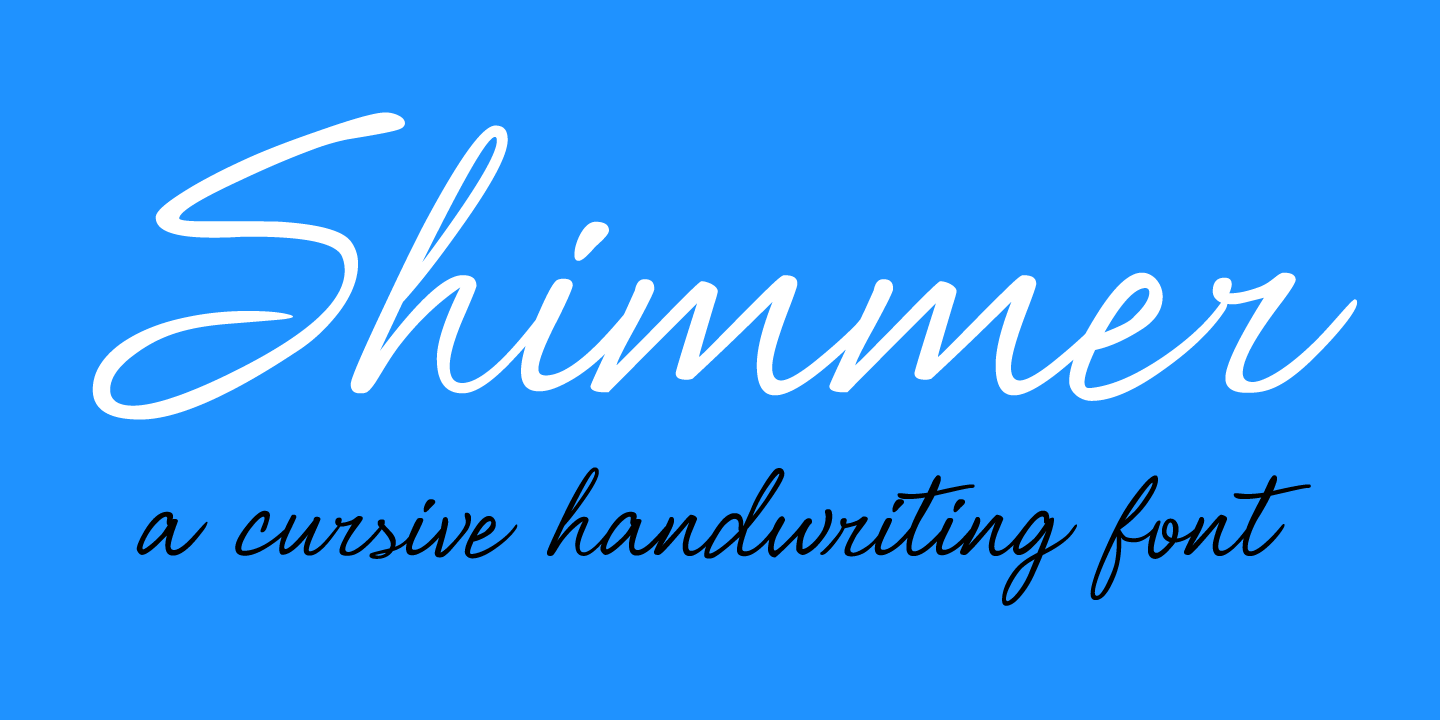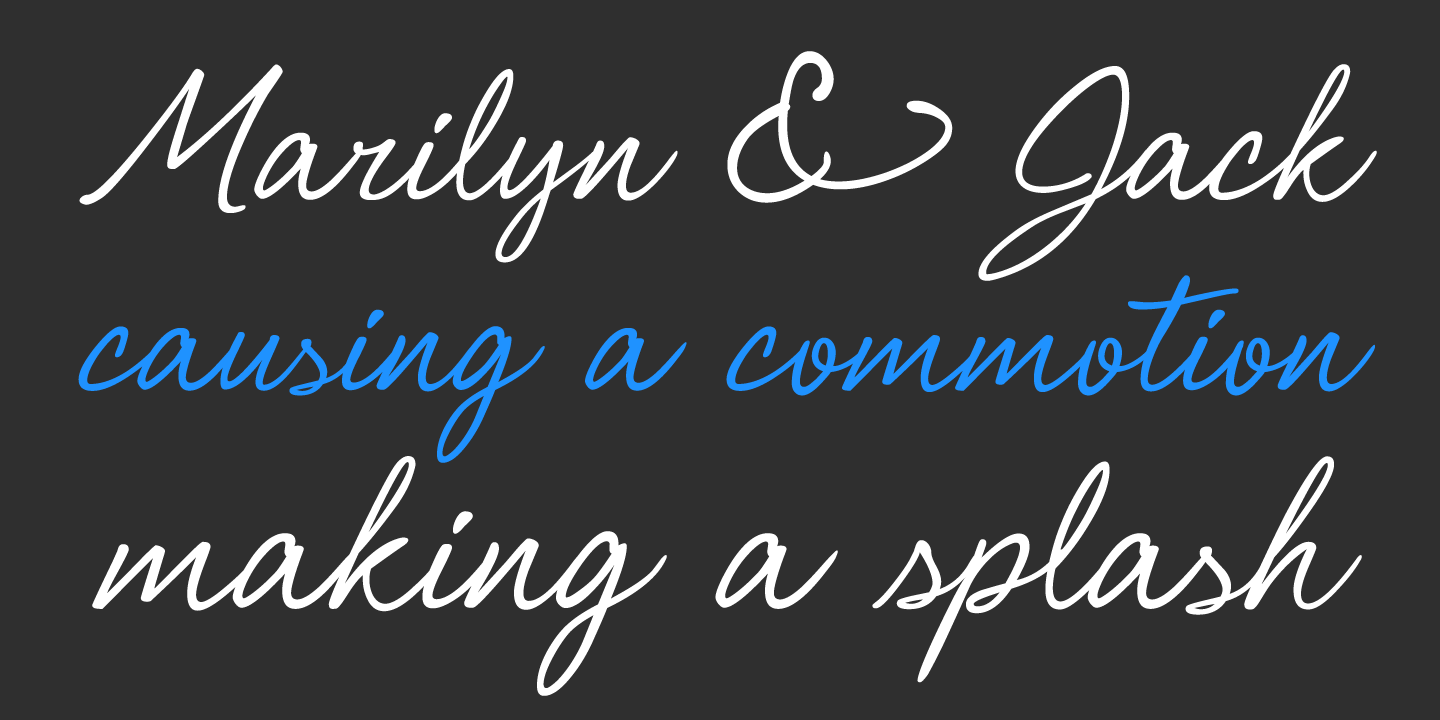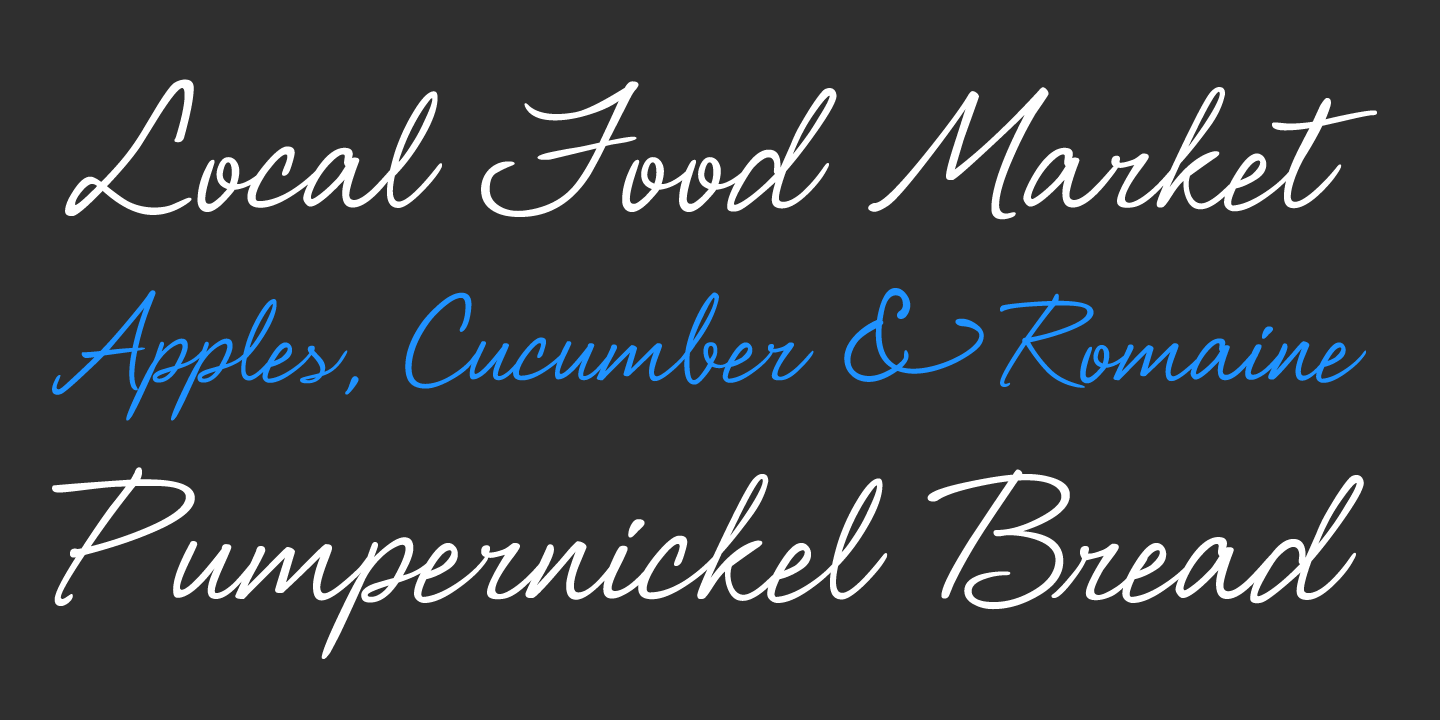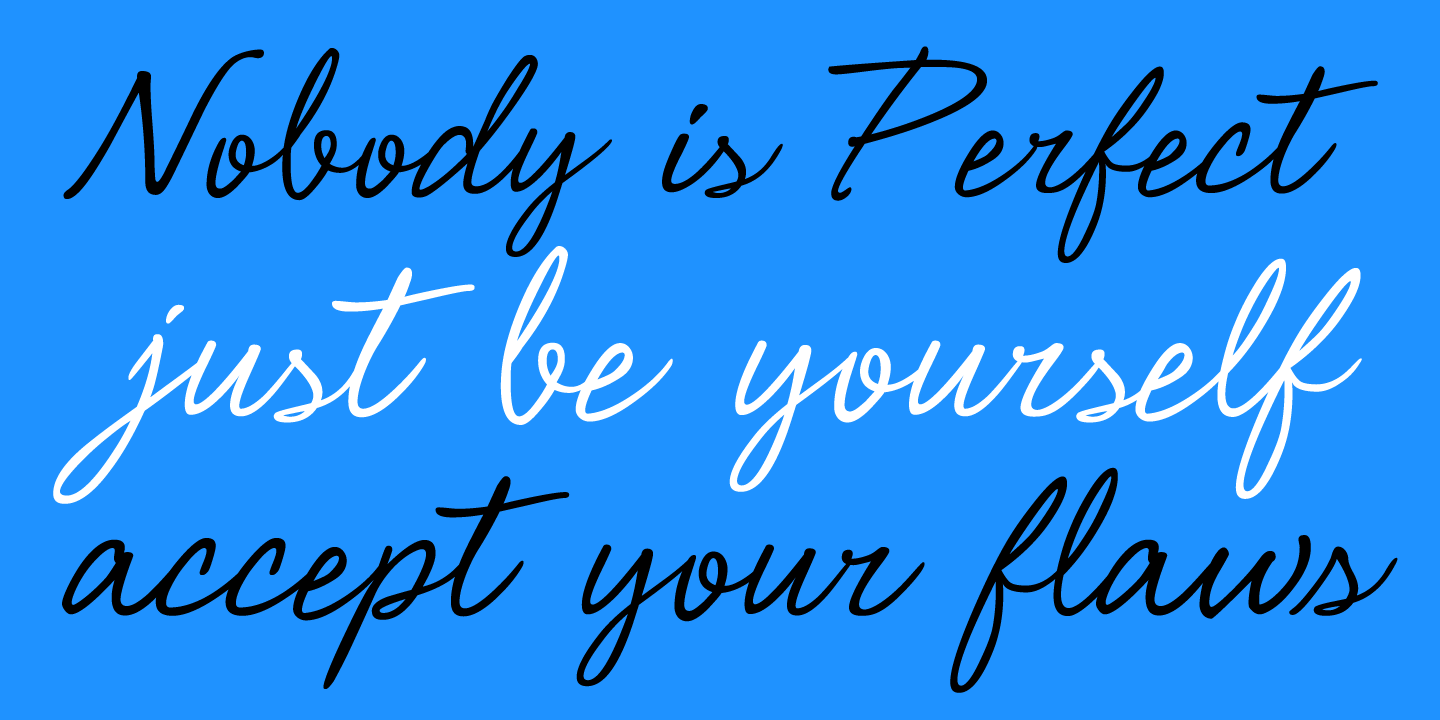
Shimmer
Font Family by Jess Latham
Shimmer looks just like real cursive handwriting, because that's exactly what it is! The letters were meticulously hand traced from actual samples of hand lettering. Great care was taken to keep the strokes natural and fluid.